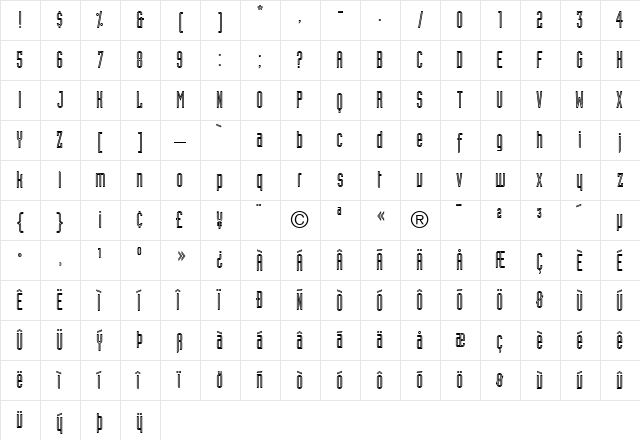
IndustriaInline Roman
Design Context for IndustriaInline Typeface
IndustriaInline brings ornamental detail and strong personality to headlines and identities, where visual impact matters more than quiet functionality.
Font Pairing: Pair with a clean neutral sans-serif for body copy to let IndustriaInline's character lead without overwhelming the composition.
Pro Tip: Use IndustriaInline exclusively at display sizes — it was designed to be seen, not read at length. Let a neutral companion handle body copy.